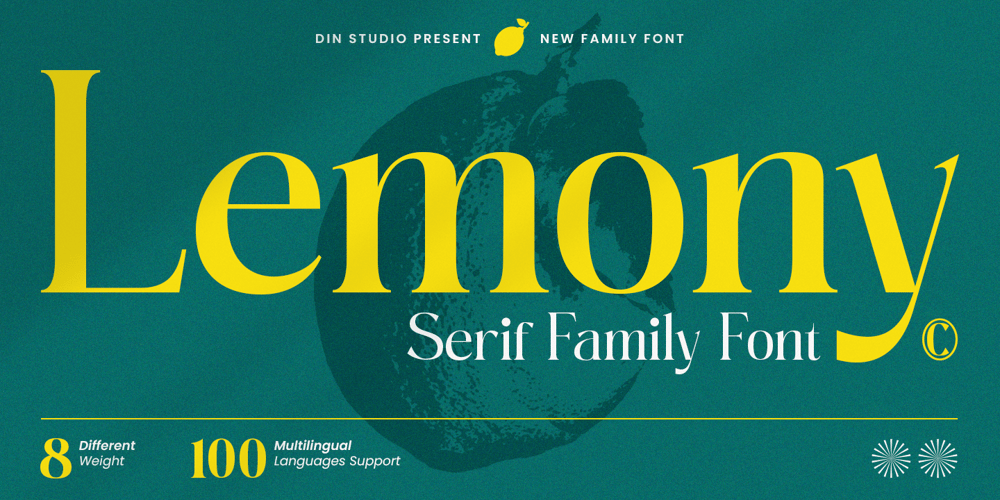
Lemony Font Family was designed by Donis Miftahudin and published by Din Studio. Lemony contains 8 styles and family package options. Lemony is a serif font family in 8 different volume options expressing formality and elegance in your designs. Its family character is that it has small lines in horizontal or vertical forms on the letter body, easing readers to read the letter as the lines guide readers’ attention to the reading directions. As a result, you may use this font on any text sizes. In addition to the font weight variations, you will have freedom of how and where you should use the font.Enjoy the available features here.Features: Ligatures Multilingual Supports PUA Encoded Numerals and Punctuations Lemony fits for various design projects, such as posters, banners, logos, magazine covers, quotes, invitations, greeting cards, merchandise social media, etc. Find out more ways to use this font by taking a look at the font preview. Hopefully, you have a great experience using our font. Feel free to contact us if you require more information when you are dealing with a problem. Thank you. Happy designing.